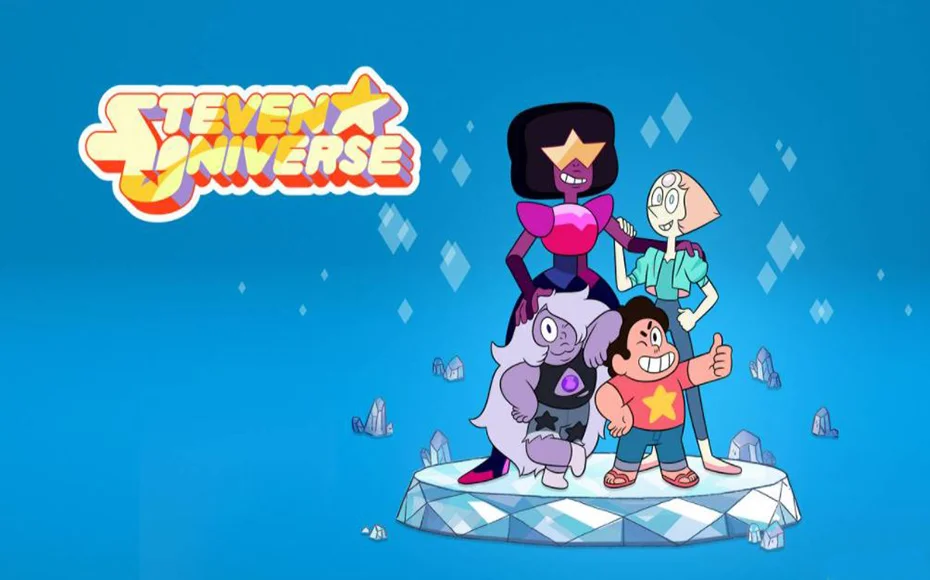
Introducing Steven Universe Font! Basically, it is an animated television show shared by Cartoon Network. These fonts are based entirely on this show and also the name of these fonts.
This amazing typeface was designed by Maxigamer in 2015. That font very popular at any time due to its attractive look and its use in the logo of Steven Universe.
For this stylish font, the designer took a keen interest in making all the glyphs and charters look cool and extremely clean.
This interesting font family is a very attractive and unique typeface with star design between the letters.
This Font Family consists of only two styles as regular and oblique. It also contains 72 Glyph and 74 defined characters. Unicode character ranges are 73(Basic Latin) and 5(Latin-1 Supplements).